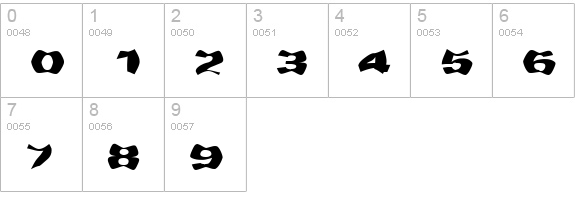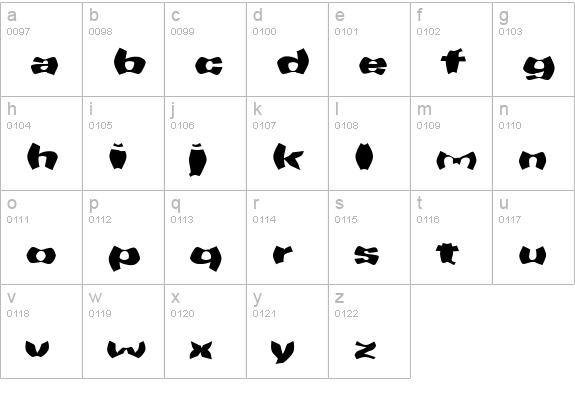
WarpSpeed Font Details
Introducing WarpSpeed font, a captivating and dynamic typeface that will transport your designs to new dimensions of creativity. With its sleek and futuristic aesthetics, this font is perfect for adding a touch of futuristic flair to any project. WarpSpeed font is meticulously crafted to reflect the speed and energy of space travel, making it an excellent choice for science fiction book covers, movie posters, and gaming graphics. Its bold and sharp letterforms create a sense of movement and excitement, capturing the essence of interstellar journeys and cosmic adventures. But what sets WarpSpeed font apart is not just its stunning design; it is also available for free! Yes, you heard it right. WarpSpeed font is freely available to download at FontsMarket.com, making it accessible to designers, artists, and enthusiasts alike. Whether you're a seasoned professional or just starting your creative journey, WarpSpeed font empowers you to explore new horizons without breaking the bank. So why wait? Dive into the world of WarpSpeed font and let your imagination soar to galaxies unknown. Download it now at FontsMarket.com and let the power of free design resources propel your creations to warp speed!